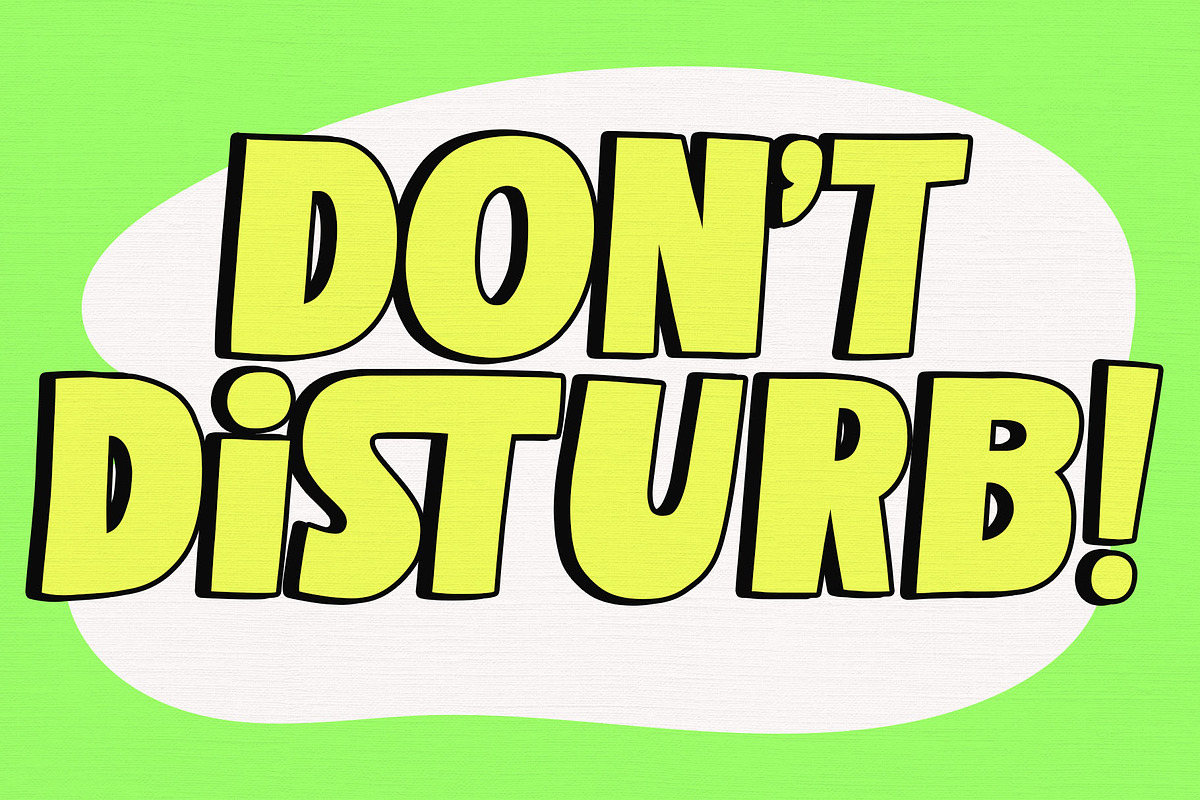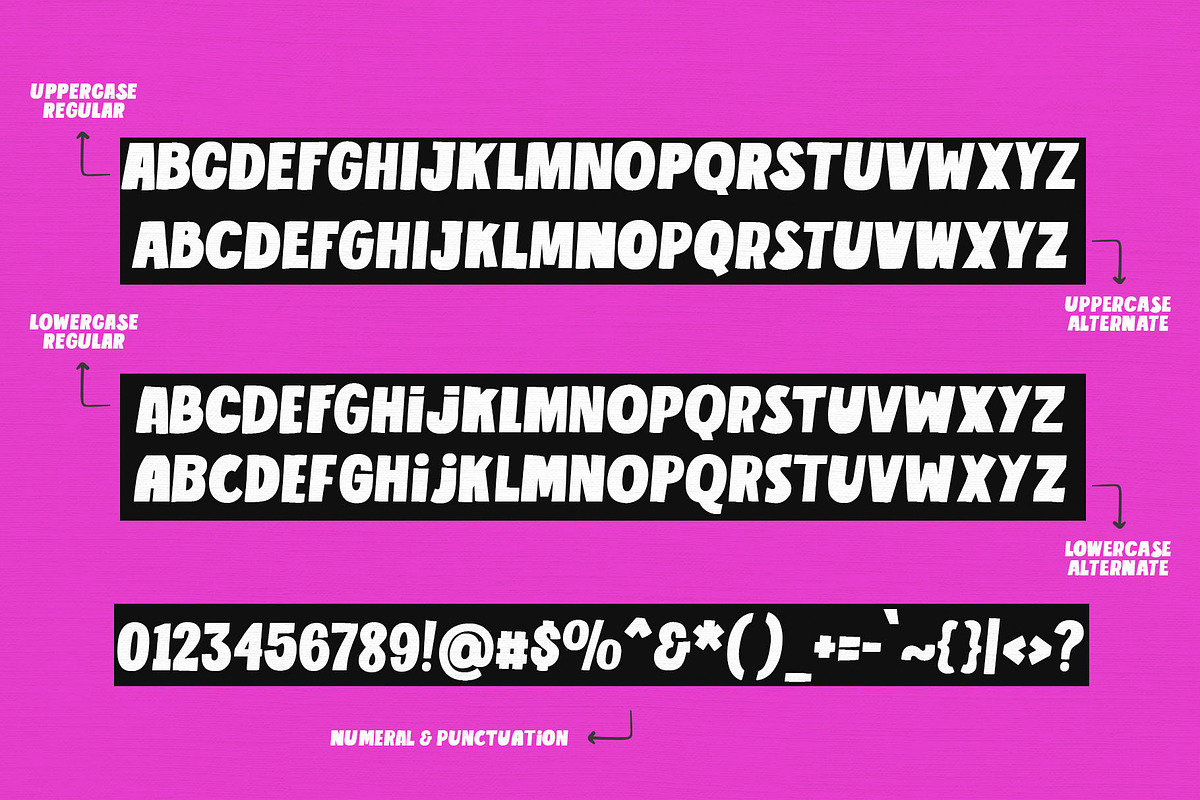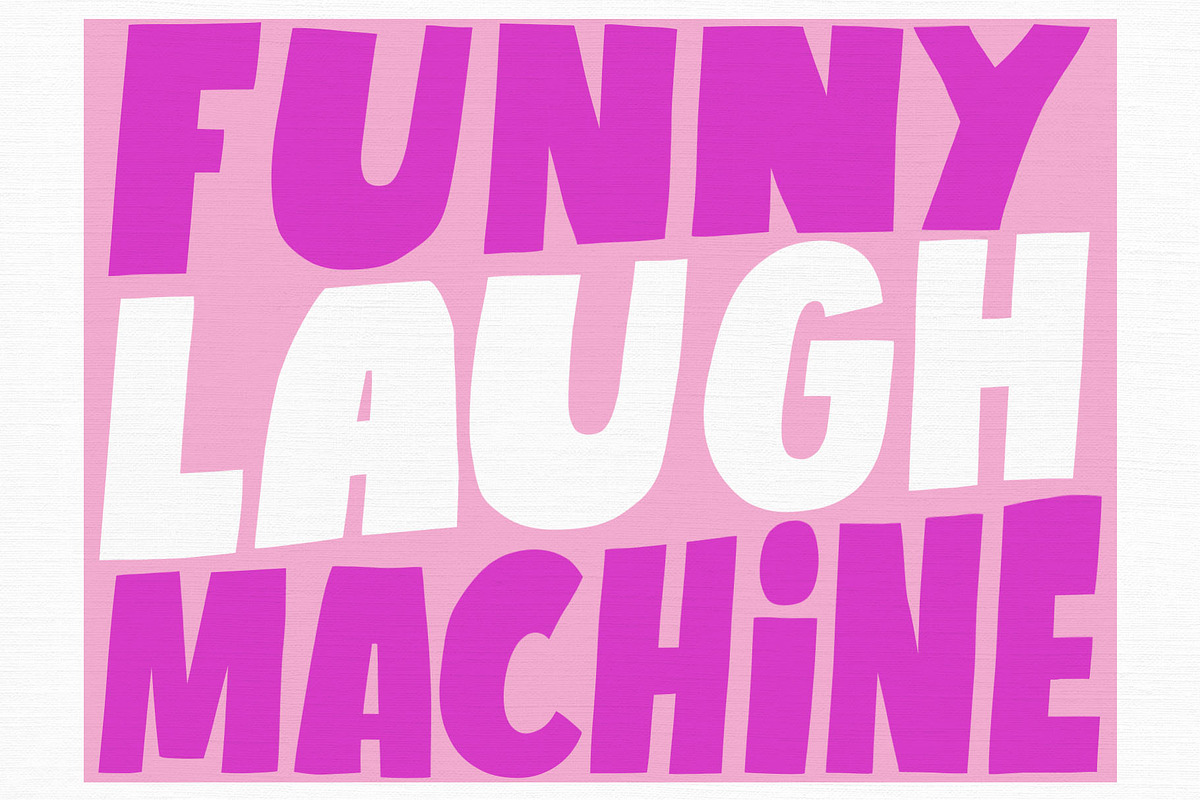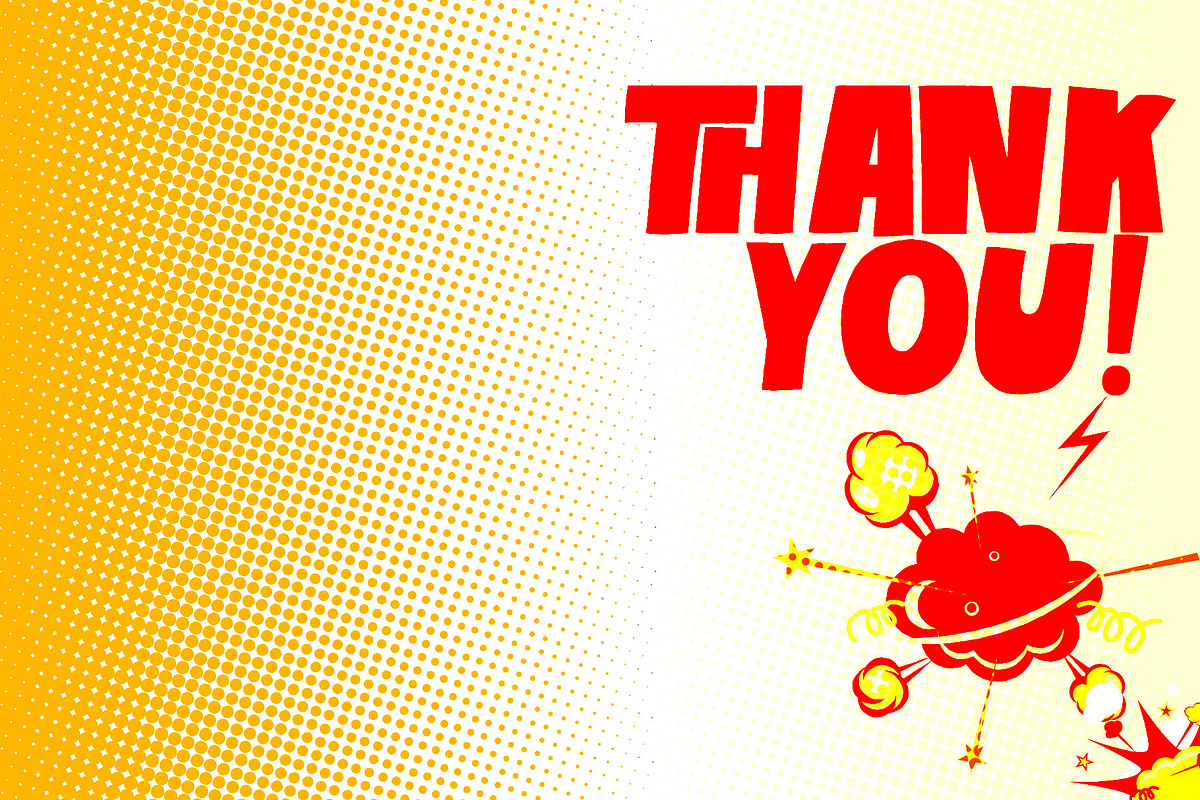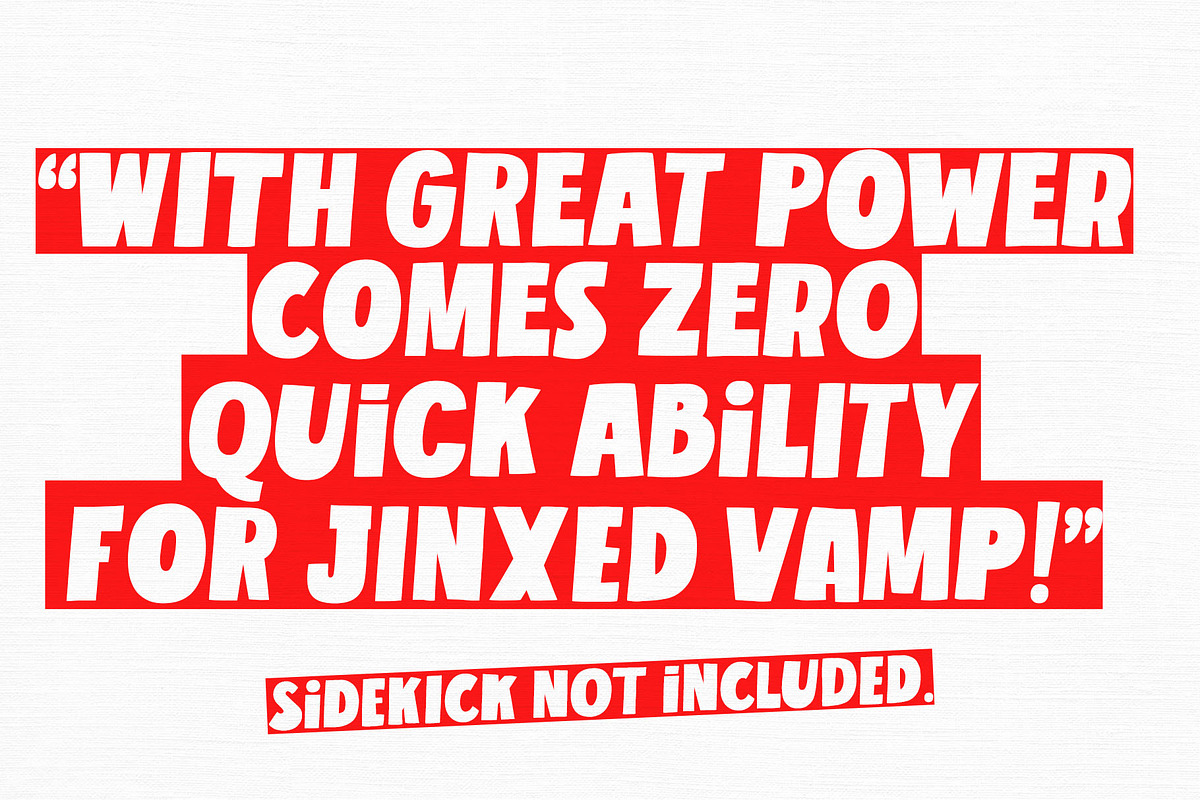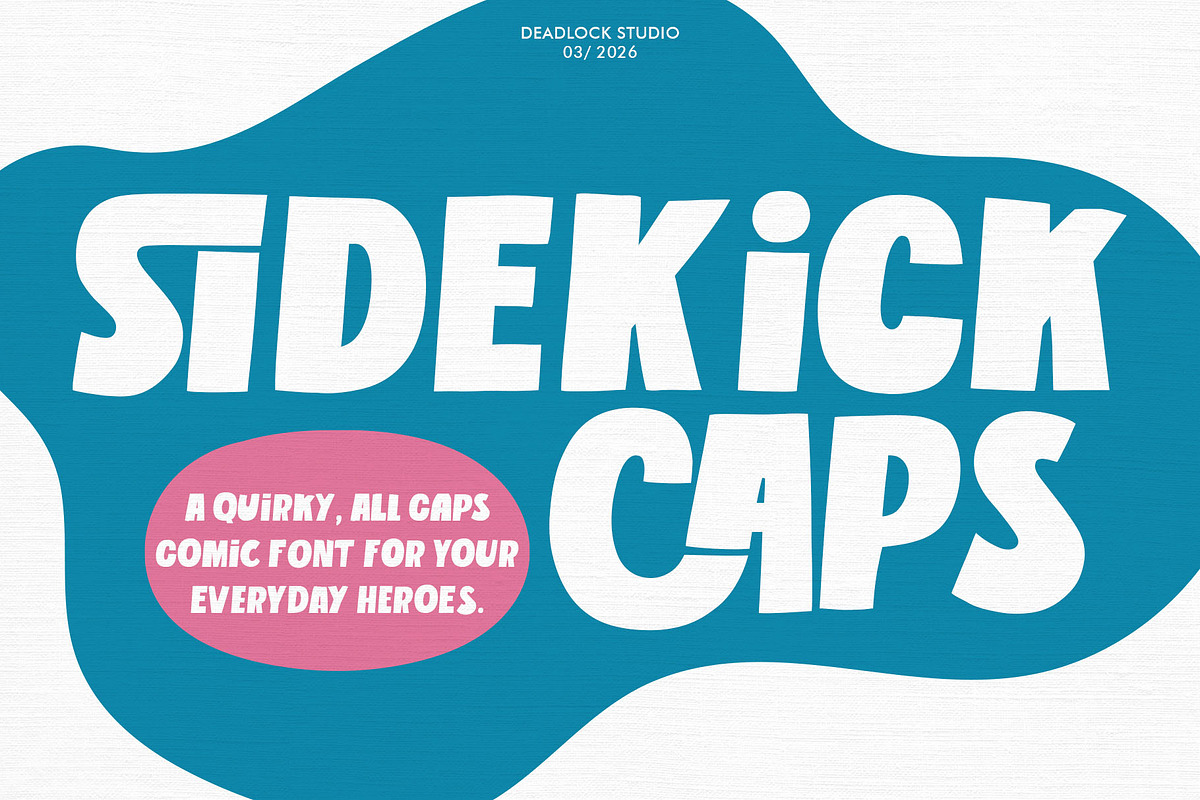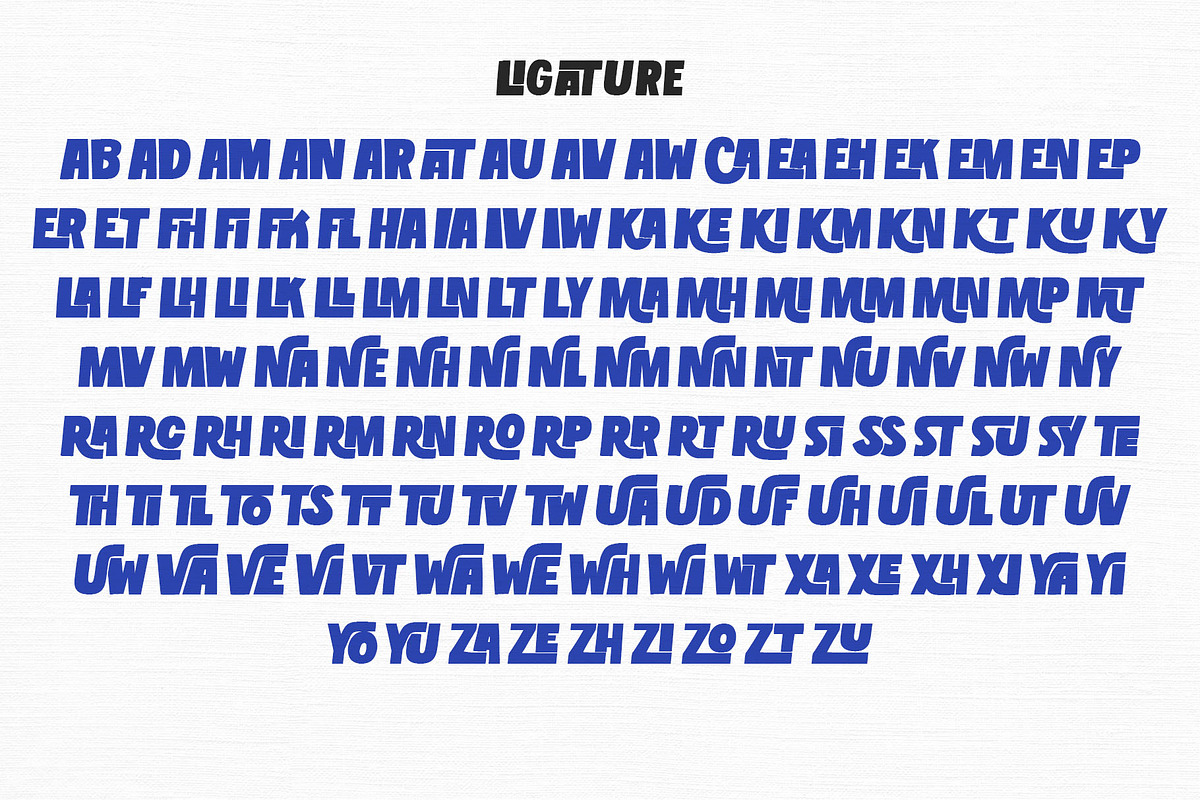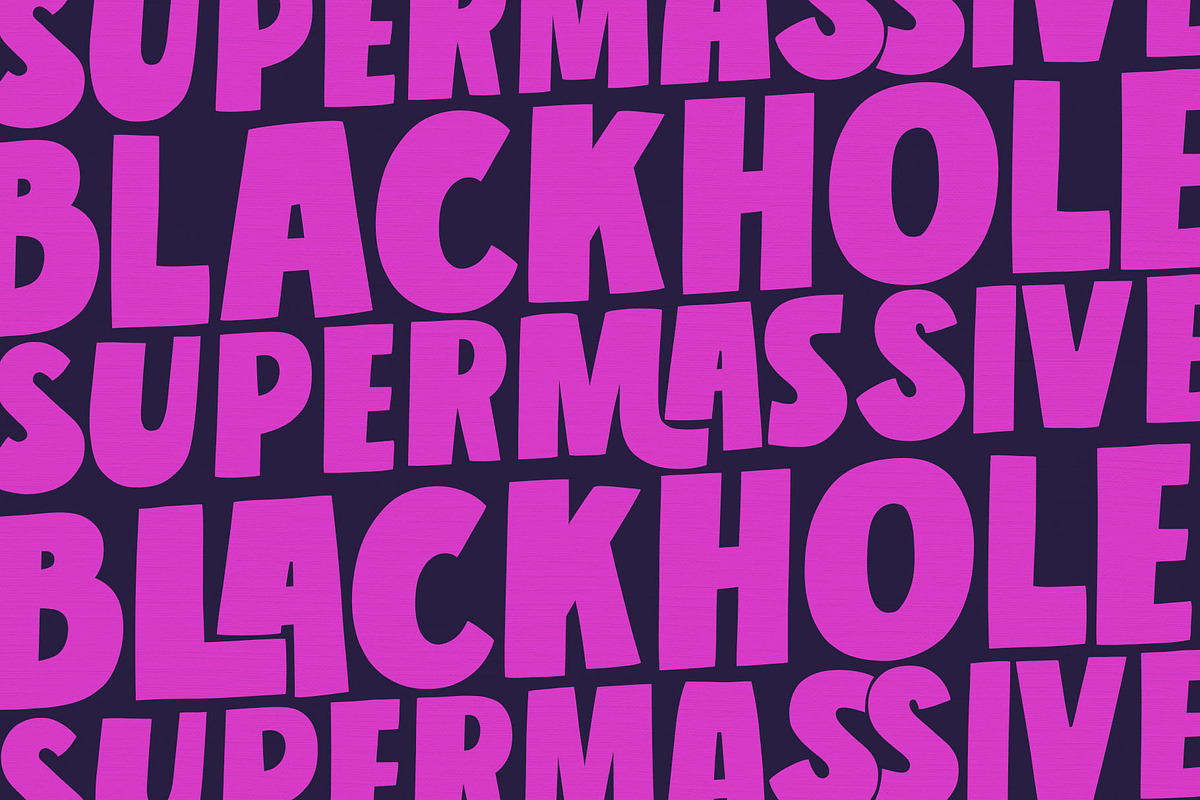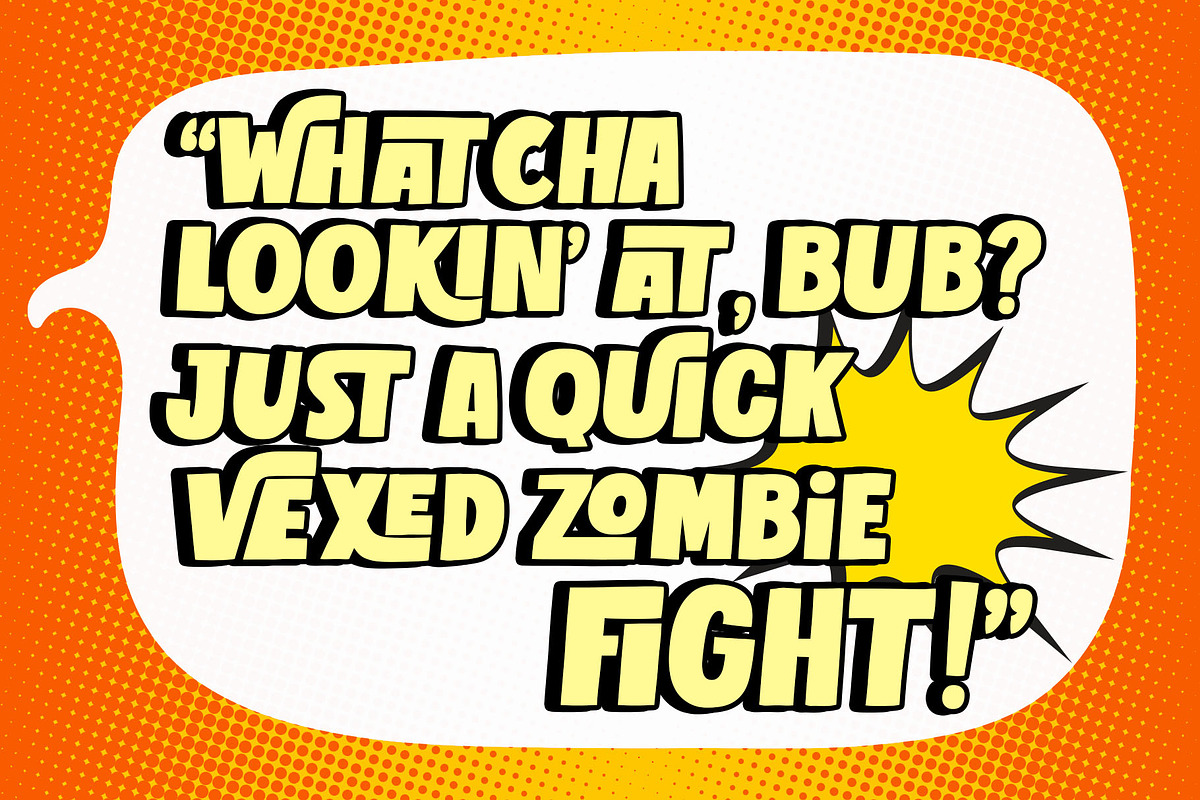
Sidekick Caps
Meet your new favorite partner. Sidekick Caps is a high energy, hand drawn All Caps font built for bold headlines, gritty comic lettering, and kick ass branding.
Forget repetitive digital fonts. With 124 Custom Ligatures and 52 Alternate Characters, your text flows naturally like a custom hand-lettered masterpiece. Whether you're saving the world or just designing a logo, Sidekick Caps delivers the power you need.
What’s Inside:
- Full All-Caps Set (398 total glyphs)
- 124 Automatic Ligatures for a seamless look
- 52 Alternates for organic variety
- Numbers & Punctuation included